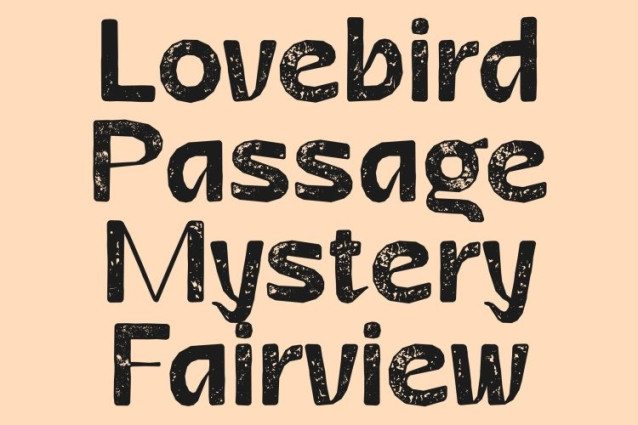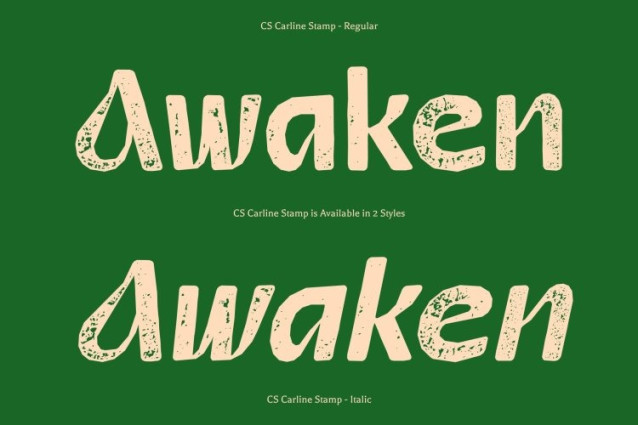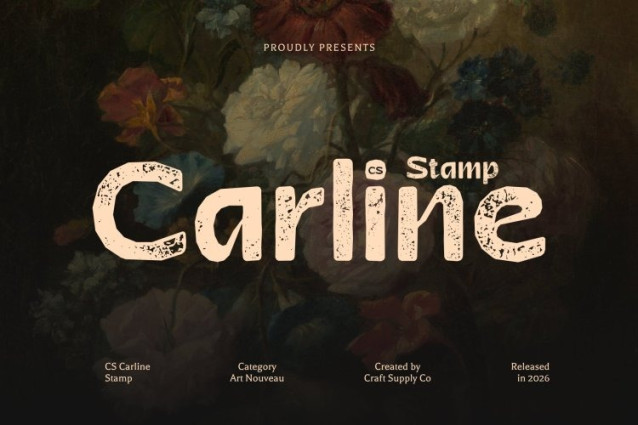
CS Carline Stamp Font
CS Carline Stamp Font – This is a modern sans-serif font inspired by the flowing beauty of Art Nouveau design. Its elegant curves and decorative details create a harmonious blend of organic artistry and contemporary sophistication. Enhanced with a subtle stamp effect, the font gains a textured, vintage character that adds depth and authenticity to its refined forms.
Artistic Details with Distressed Stamp Texture
The fluid lines and ornamental shapes of are complemented by delicate distressed textures that resemble traditional ink stamping or aged print techniques. These subtle imperfections introduce warmth and handcrafted charm, enriching the decorative elegance of the letterforms while maintaining their graceful structure.
Refined and Luxurious Visual Impression
This font conveys a sense of luxury and artistic refinement. Its flowing structure and textured surface create typography that feels expressive, elegant, and visually captivating. The combination of Art Nouveau influence and vintage stamp character produces a distinctive style that feels both timeless and modern.
Perfect for Elegant Branding and Decorative Design
Ideal for upscale branding, invitations, editorial layouts, interior design concepts, and promotional materials, enhances projects that celebrate beauty and sophistication. Its graceful curves, decorative spirit, and artistic texture create a memorable typographic presence that elevates designs with classic charm and modern elegance.